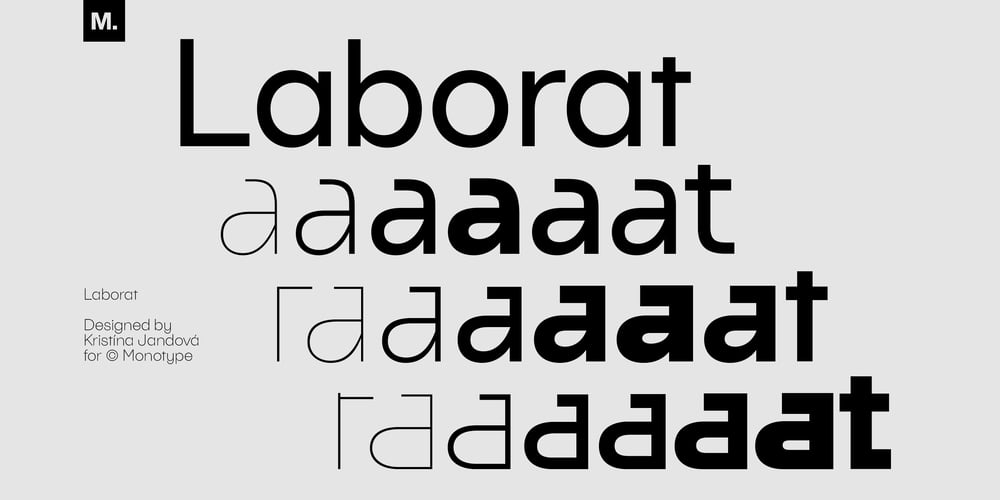
Laborat
Laborat font
Laborat Font Family was designed by Kristina Jandova and published by Monotype. Laborat contains 6 styles and family package options. Typeface Laborat™, designed by Kristína Jandová, is a Grotesk typeface that combines the geometry of a circle and a square. The visual message of geometry is applied to stylistic sets and modified by special characters, including abstract forms or symbols, that turn the typeface into a visual “graphic” language.The basic character of the typeface lies in the default set based on the circle-like shapes of letters. The stylistic sets 01 to 03 are characterized by different geometrical modifications of the growing character and the idea “from circle to square” applied on the letters a, f, g, l, r, t, u, y. By using these different alterations of consistent letterforms, it offers a playful space for everyone.The first inspiration of the typeface origins in Paul Renner’s Futura sketches, that were a celebration of geometrical playfulness of modernism meeting constructivism. It is modified into a new contemporary “wave” of typography as a graphical method.Laborat comes in six weights, from Hairline to Heavy.